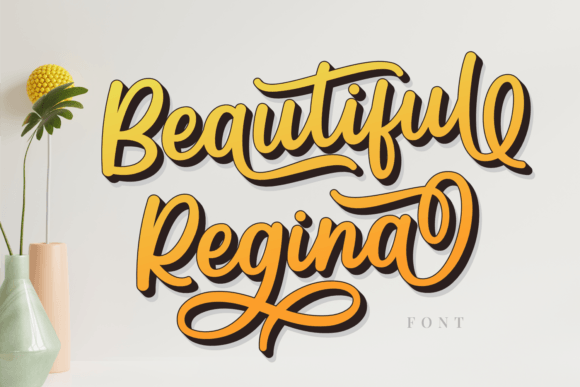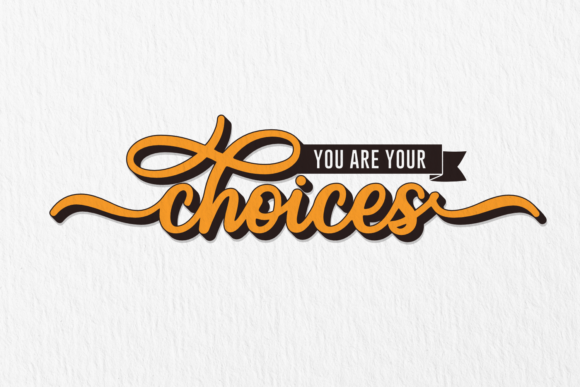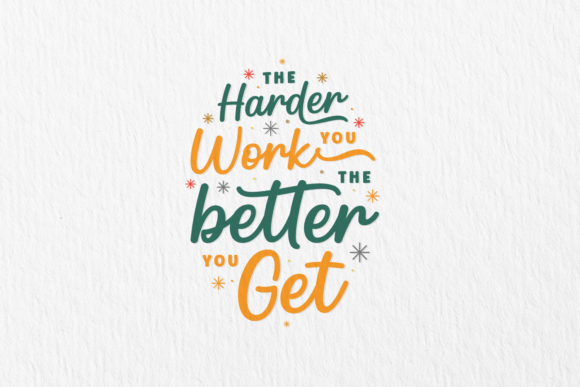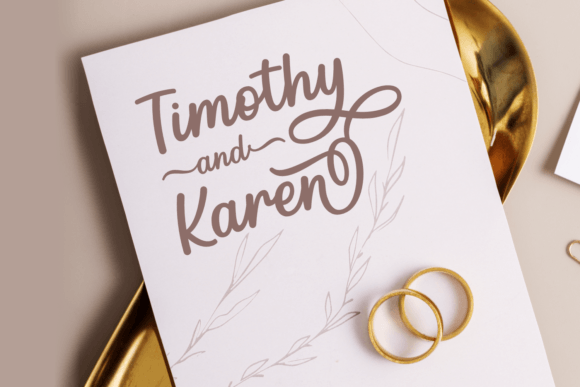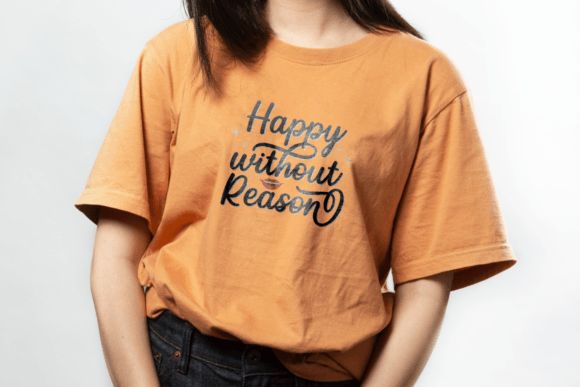
Beautiful Regina is a sweet, cursive handwritten font that adds joyful and romantic elegance to branding, logos, wedding projects, greeting cards, and fashion designs. Read more
Beautiful Regina Font features gentle, flowing cursive strokes perfect for a variety of design ideas. It brings a joyful, romantic touch to any project while maintaining an elegant yet casual vibe. Ideal for branding, wedding items, logos, greeting cards, lookbooks, and marketing promotions, this font’s PUA encoding lets you easily access all its beautiful glyphs and ligatures. Add a fancy yet approachable flair to your creative work with Beautiful Regina’s timeless charm.